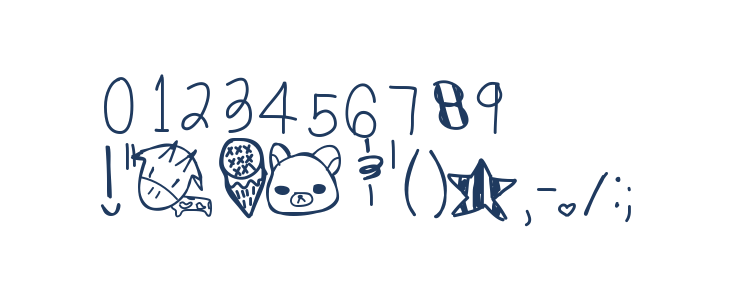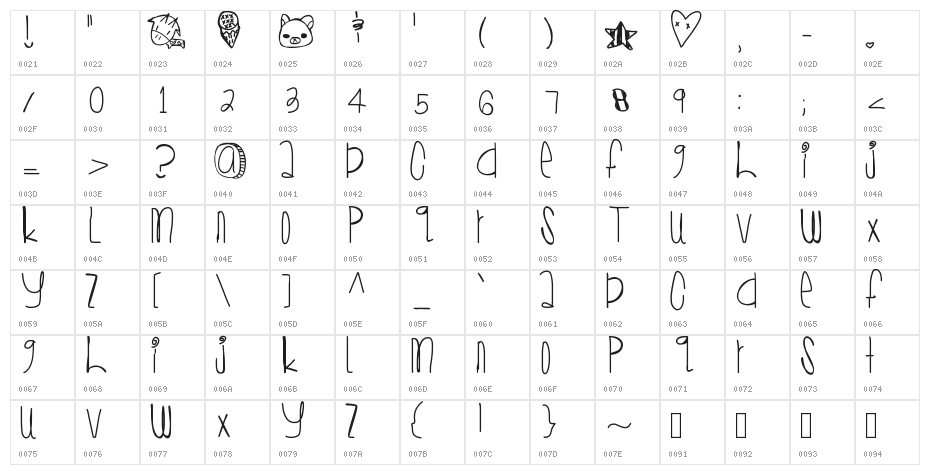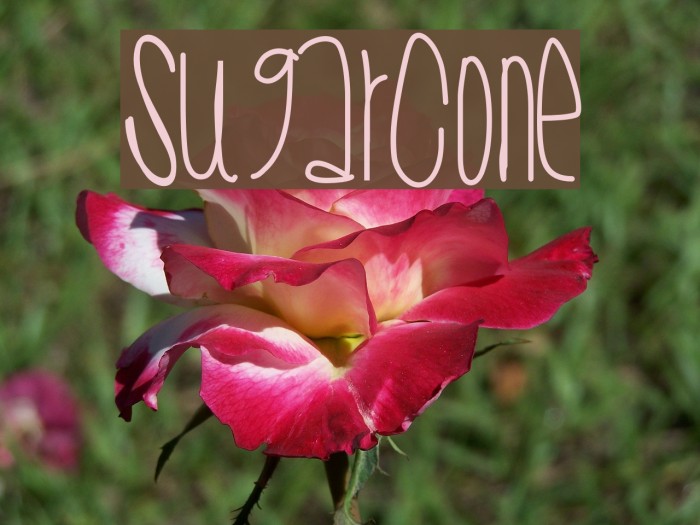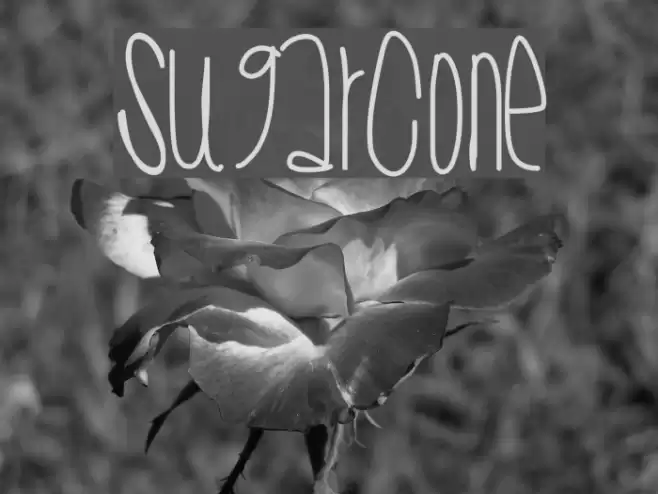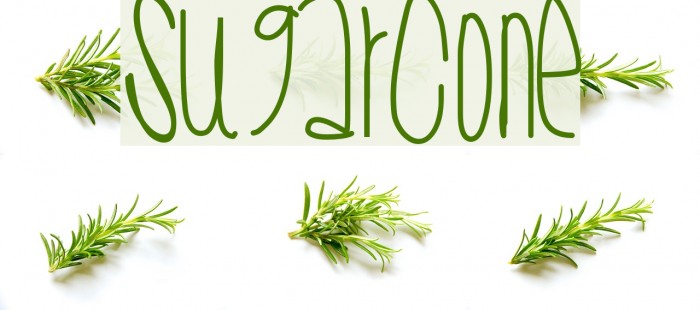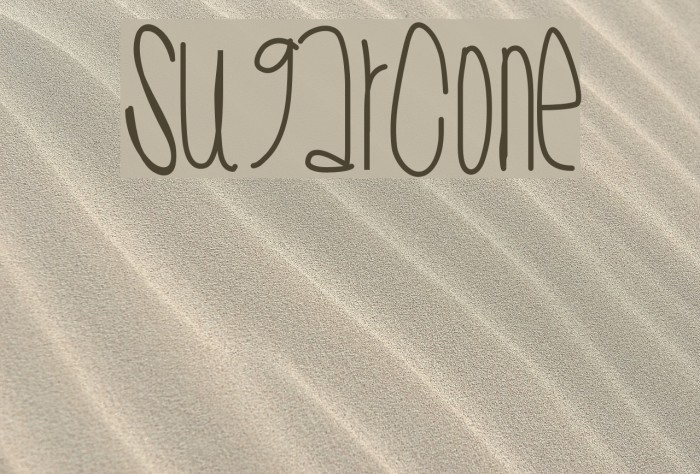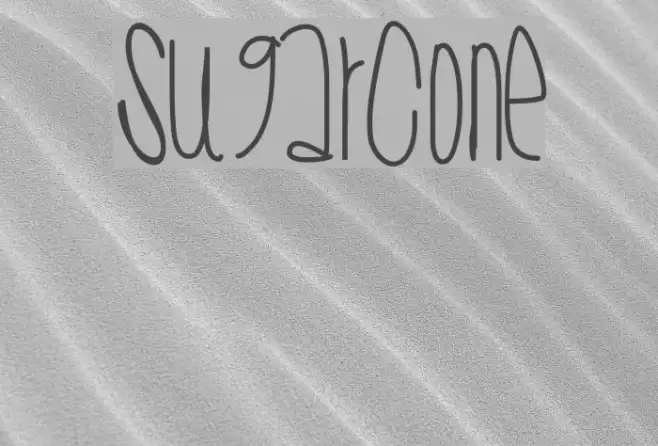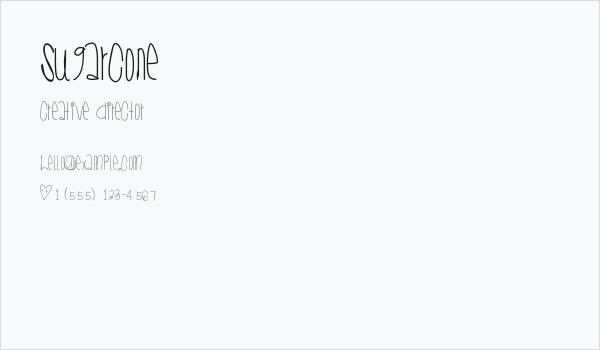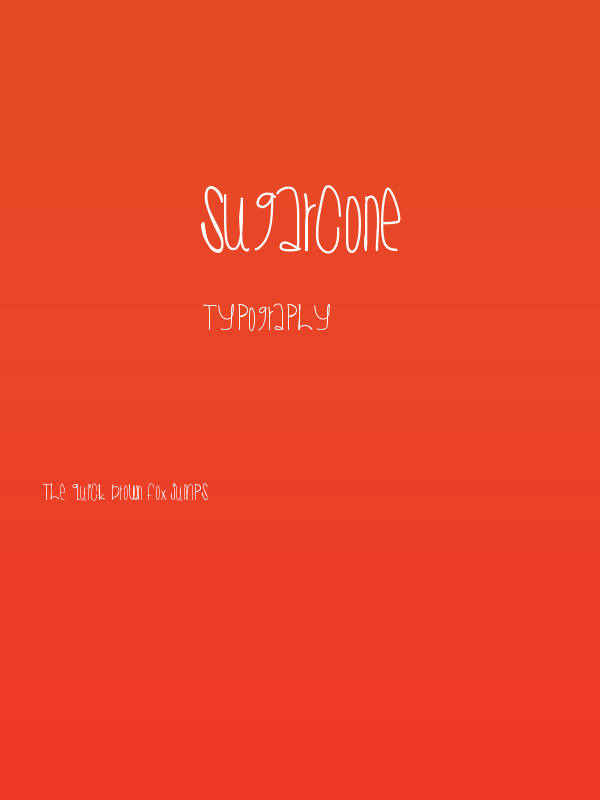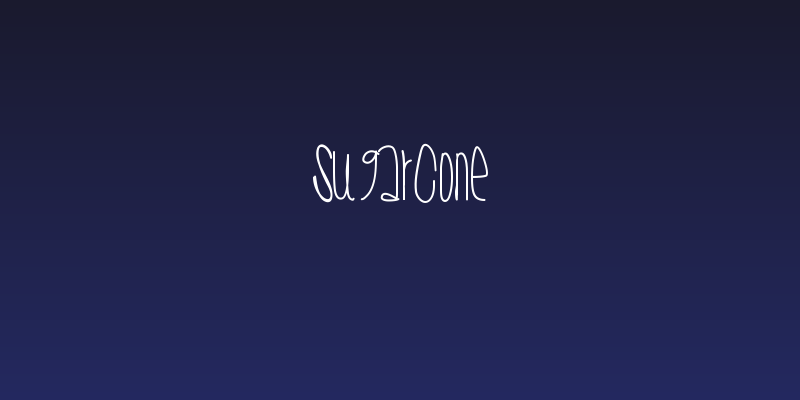
SugarCone Font
SugarCone Description
This playful and whimsical font features tall, narrow characters with a hand-drawn aesthetic. The letters have a casual, uneven stroke that adds a sense of fun and creativity. The uppercase and lowercase letters maintain a consistent style, with some characters like 'g' and 'y' having unique loops and tails. Numbers are similarly styled, with a quirky and informal appearance. Special characters include charming doodles, enhancing the font's playful nature. This font is perfect for projects that require a lighthearted and artistic touch.
| Use Case | Logos, Posters, Creative projects |